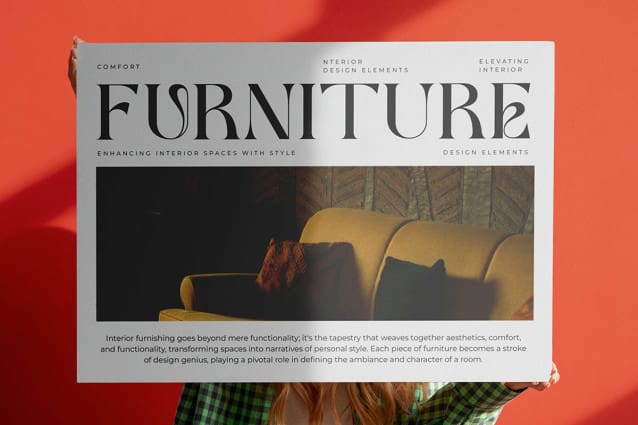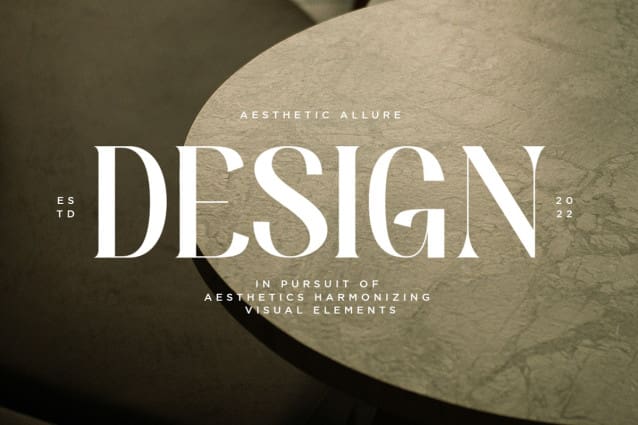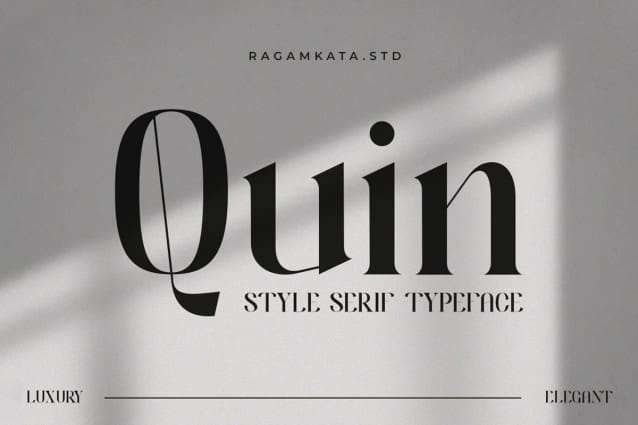
Quin Font
Quin Font, a stunning serif that lives for being the center of attention. Use this classic, refined serif for large-scale headers, big text moments, or gorgeous quotes.
Quin was built to be the center of attention. With stunning contrast, organic curves, Quin is a phenomenal go-to for any luxe branding or type-focused project.